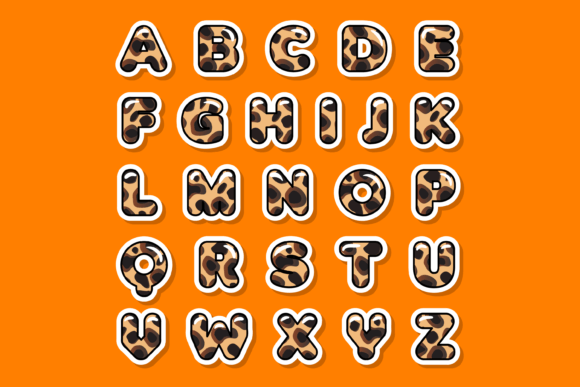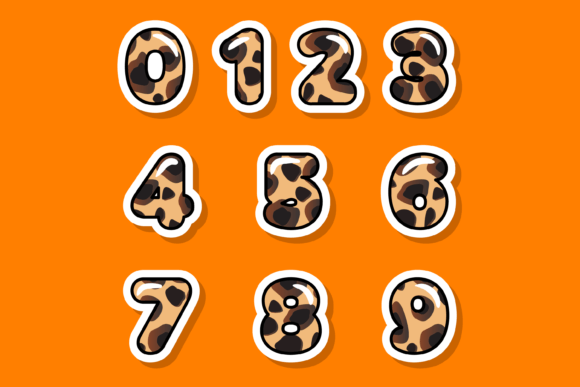
Unleash Your Creativity with Cheetah Font: A Vibrant Color Font for Stunning Designs
Are you on the lookout for a font that adds a playful and vibrant touch to your designs? Look no further than the Cheetah Font, an incredibly cool color font designed in the style of Animal. This amazing font is perfect for designers, crafters, and DIY enthusiasts who want to take their creations to the next level. In this article, we’ll dive into the features and benefits of the Cheetah Font, and explore how you can use it to unleash your creativity.
What is Cheetah Font?
Cheetah Font is a color font designed in the style of Animal, characterized by its bold, playful, and eye-catching appearance. This font is an Opentype-SVG file, which means it’s a cutting-edge font format that allows for colorful and dynamic text rendering. The Cheetah Font is perfect for creating custom designs, DIY crafts, and any other project that requires a lovely touch.
Key Features of Cheetah Font
- Color Font: Cheetah Font is a color font, which means it can display a wide range of colors and gradients, giving your designs a vibrant and dynamic look.
Benefits of Using Cheetah Font
So, why choose Cheetah Font for your designs? Here are just a few benefits of using this amazing font:
- Adds a Playful Touch: Cheetah Font adds a playful and fun touch to your designs, making them perfect for projects that require a lighthearted and creative approach.
- Versatile: This font is versatile and can be used for a wide range of projects, from custom designs and DIY crafts to signage and branding.
- High-Quality: This font is designed to high-quality standards, ensuring that your designs look professional and polished.
Tips and Tricks for Using Cheetah Font
Here are some tips and tricks for using Cheetah Font:
- Experiment with Colors: Don’t be afraid to experiment with different colors and gradients to give your designs a unique look.
- Use it for Headings: Cheetah Font is perfect for headings and titles, adding a bold and eye-catching touch to your designs.
- Pair it with Other Fonts: Try pairing Cheetah Font with other fonts to create a unique and interesting look.